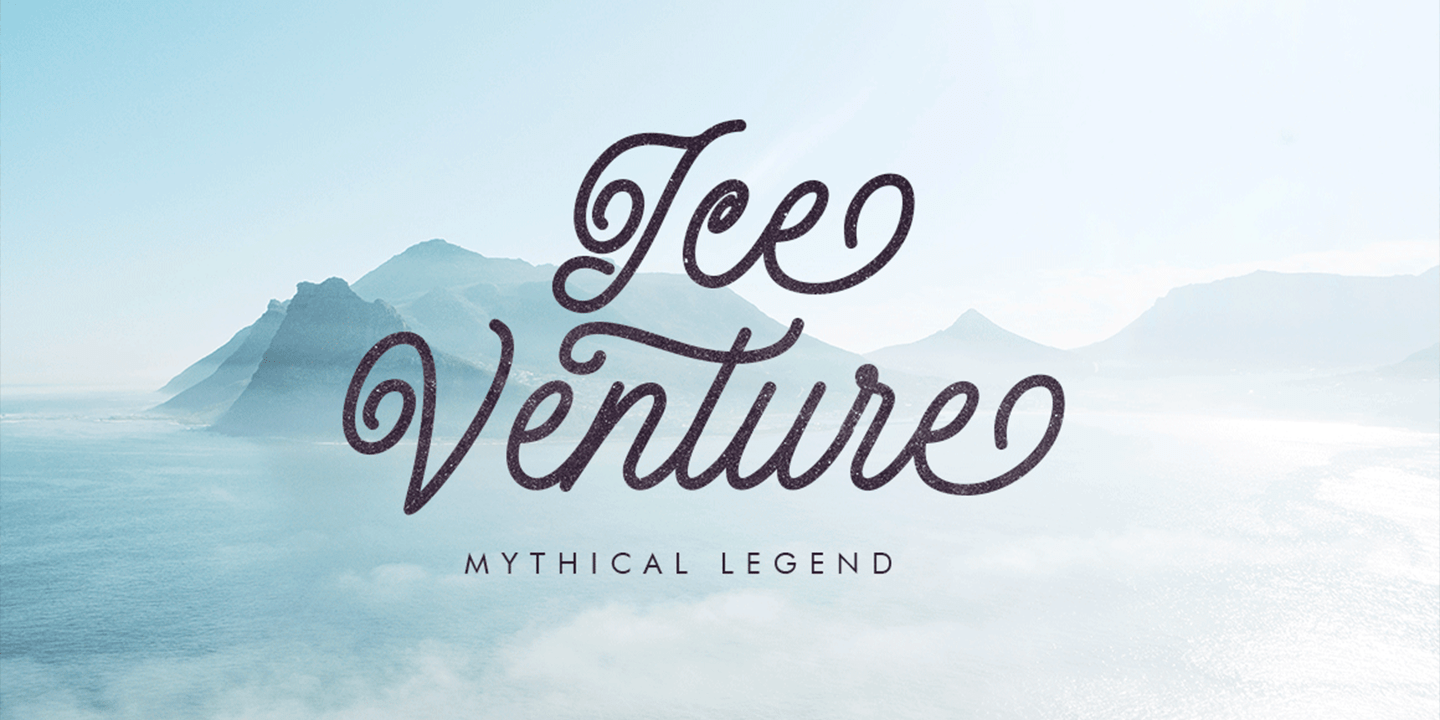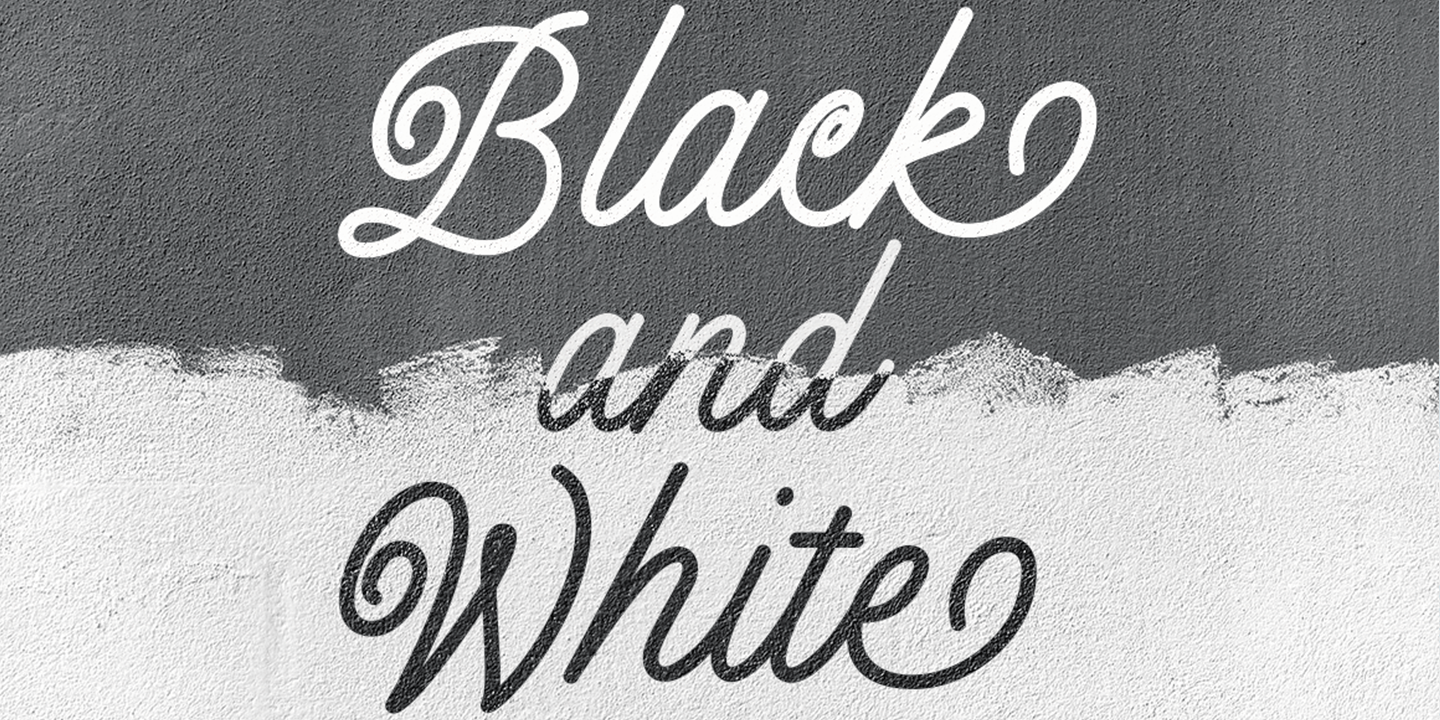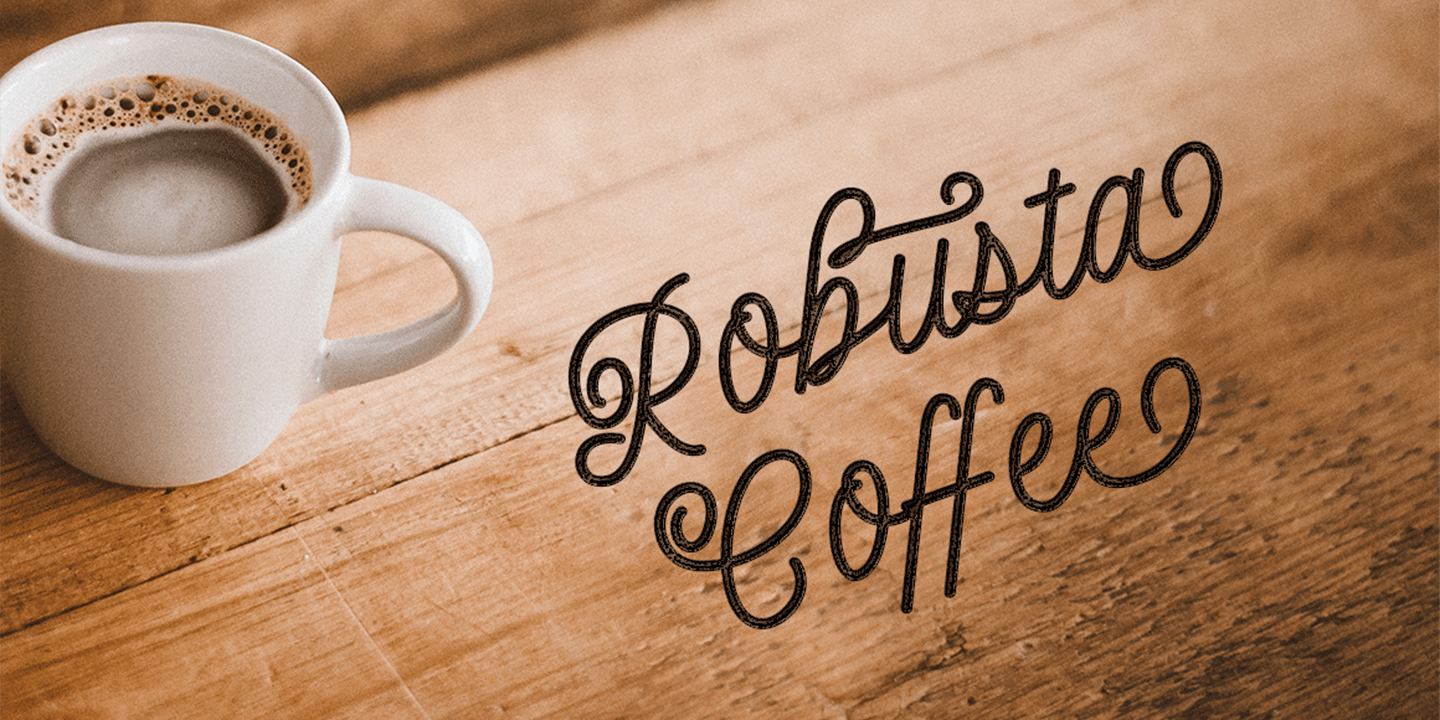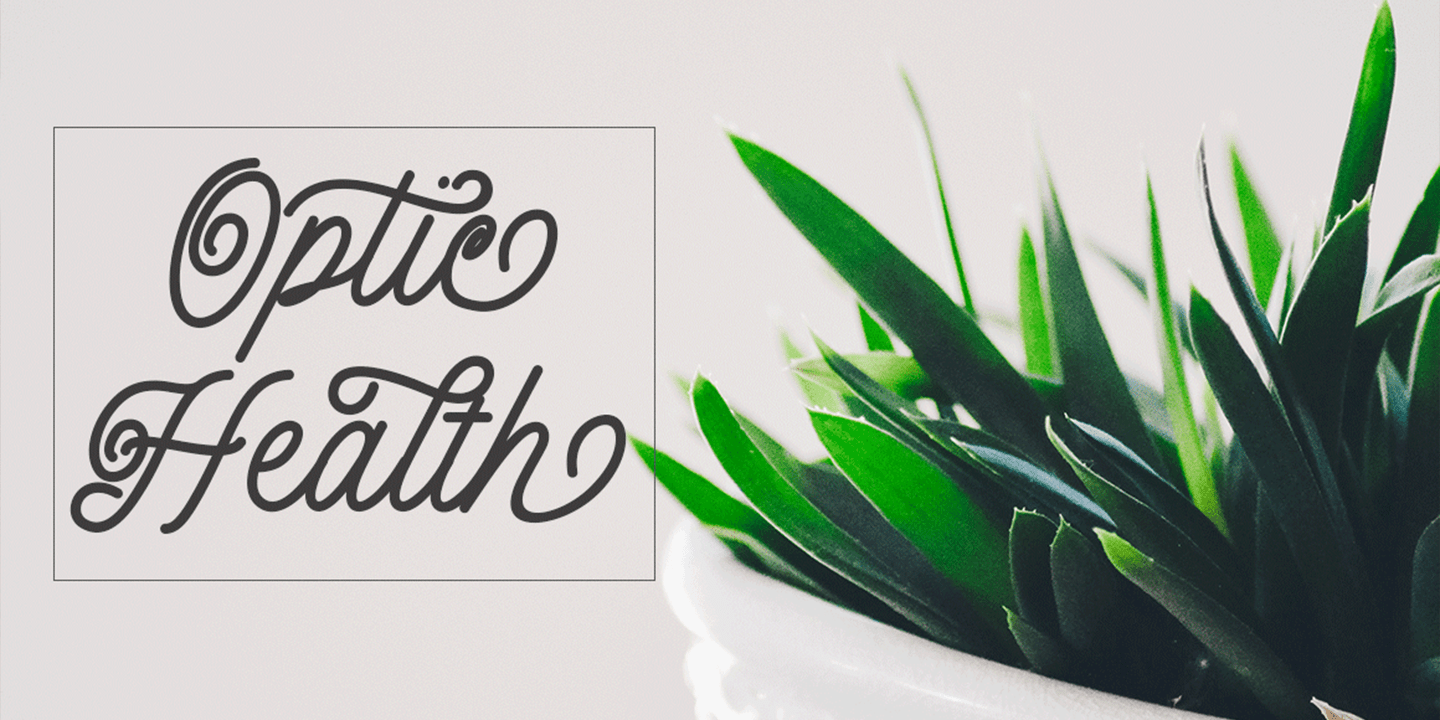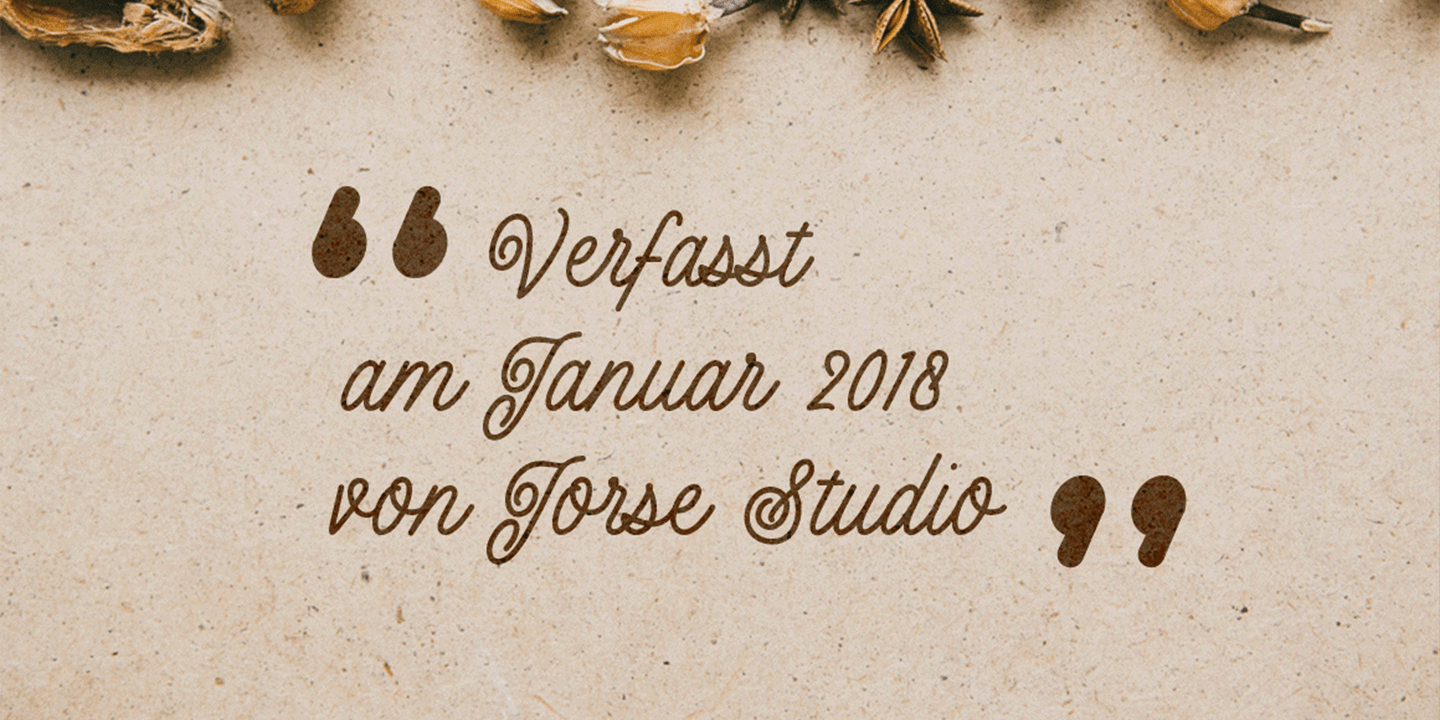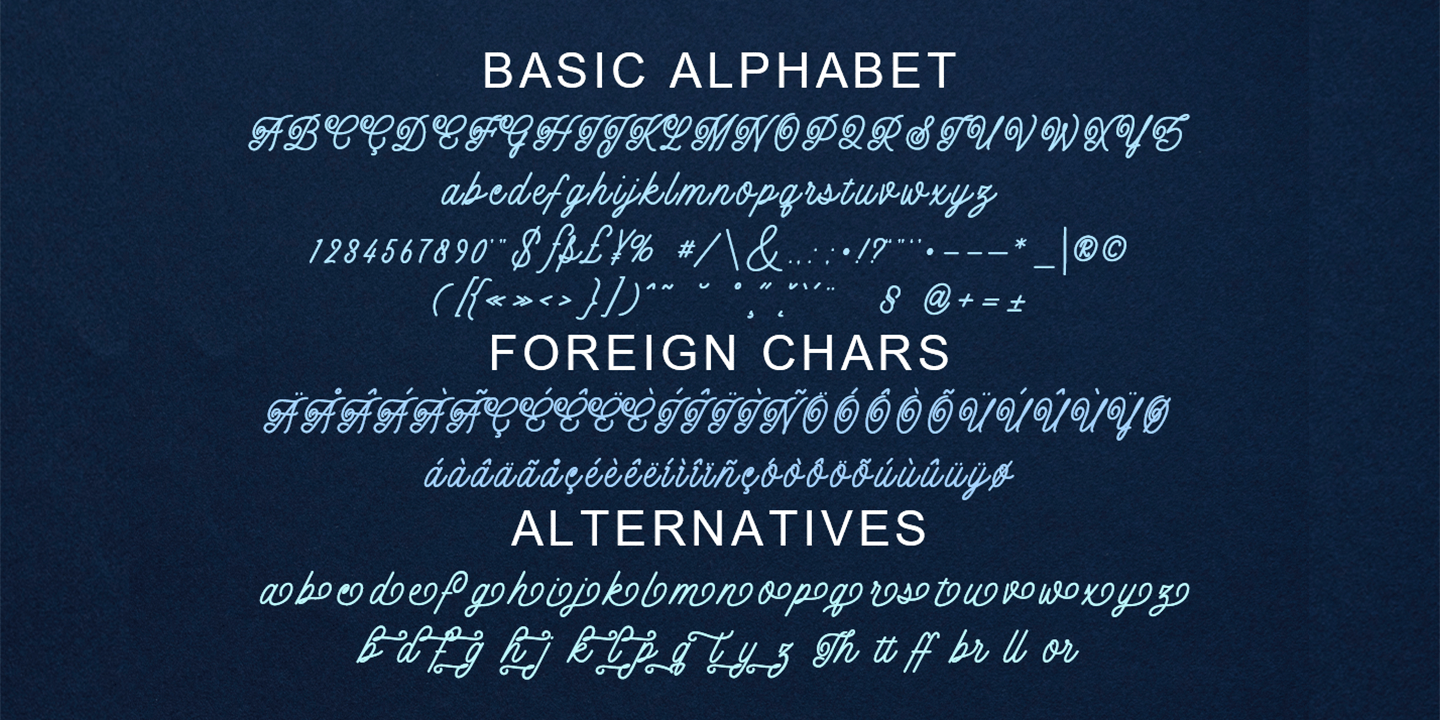
Felicia
Felicia a work that is purely a result of handwriting, has a natural characteristic. this is perfect for invitations, signatures, blogs, social media, business cards, product brands.
Felicia a work that is purely handwritten, has its own characteristics with the style of monoline It is perfect for invitations, signatures, blogs, social media, business cards, product brands.
The Felicia font family includes 252 glyphs.